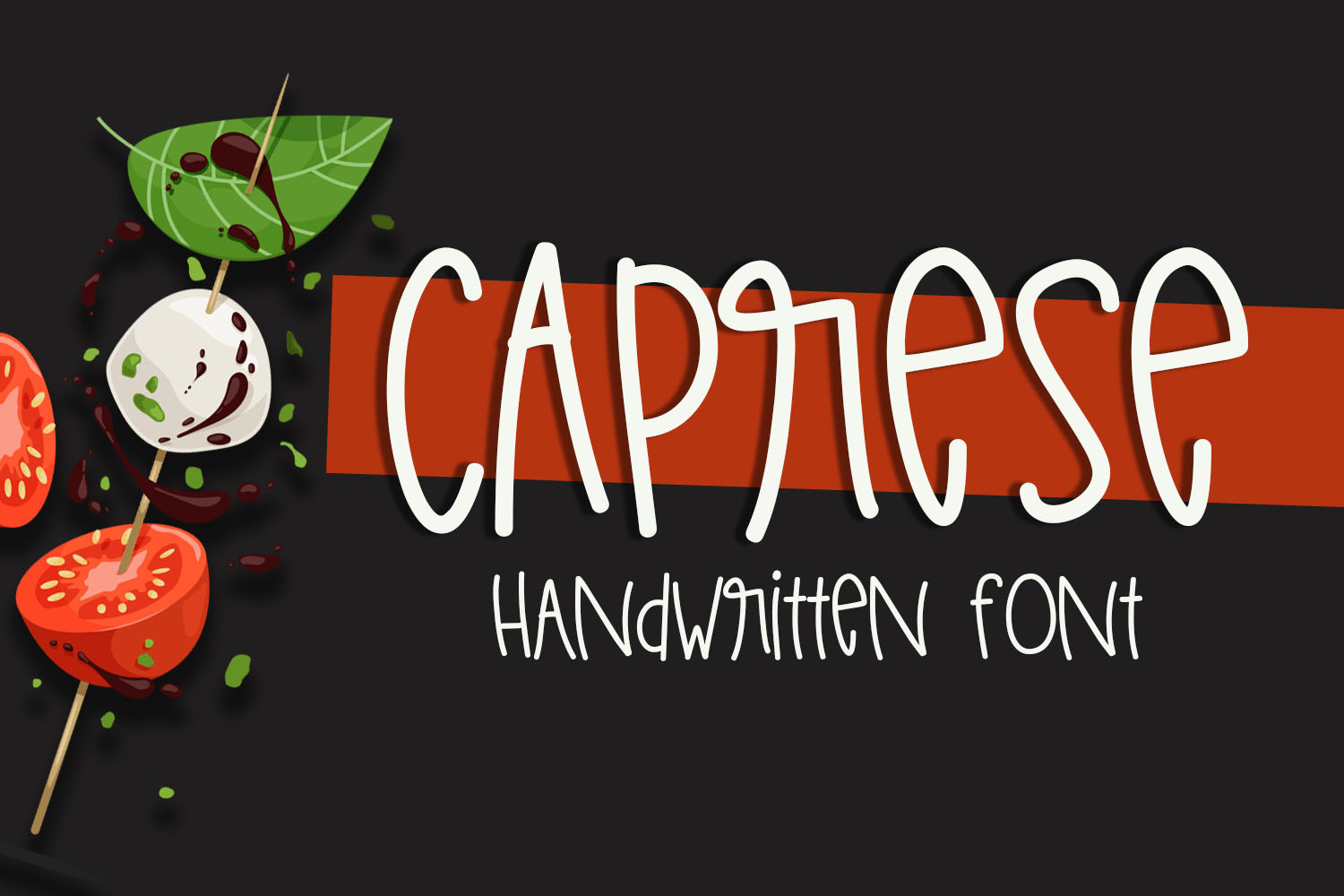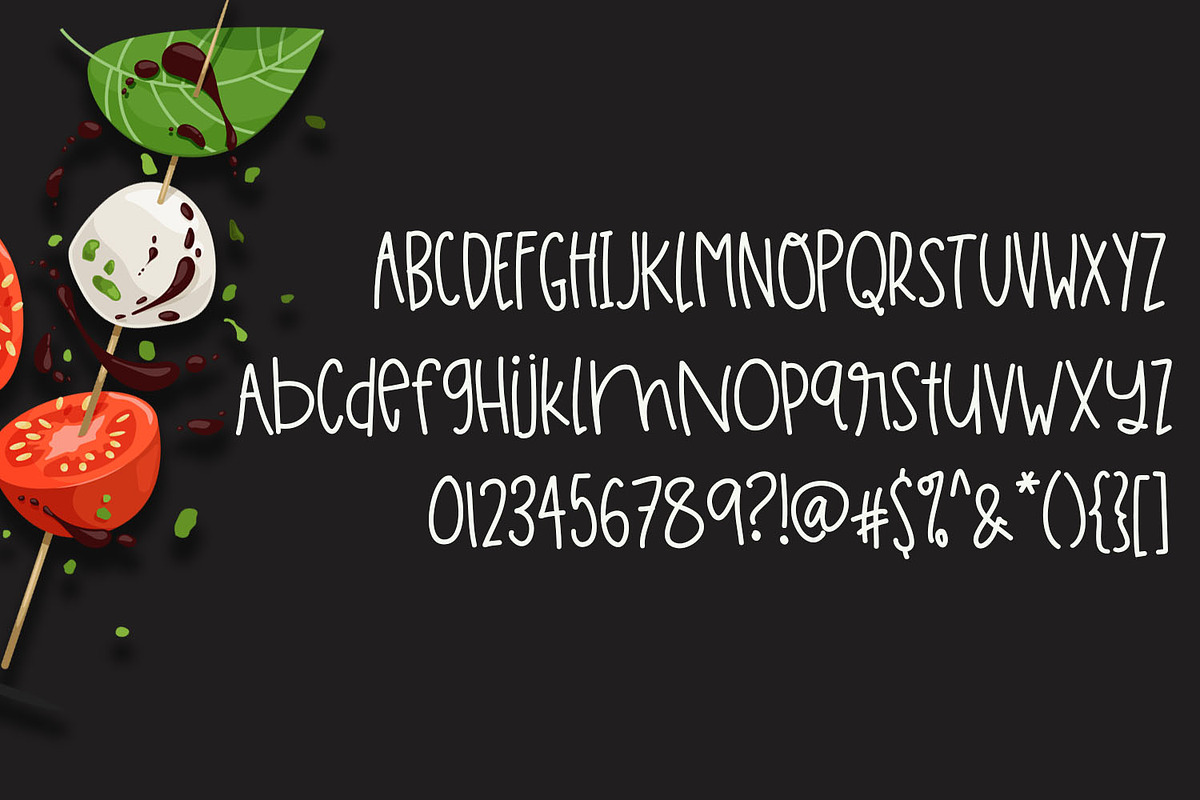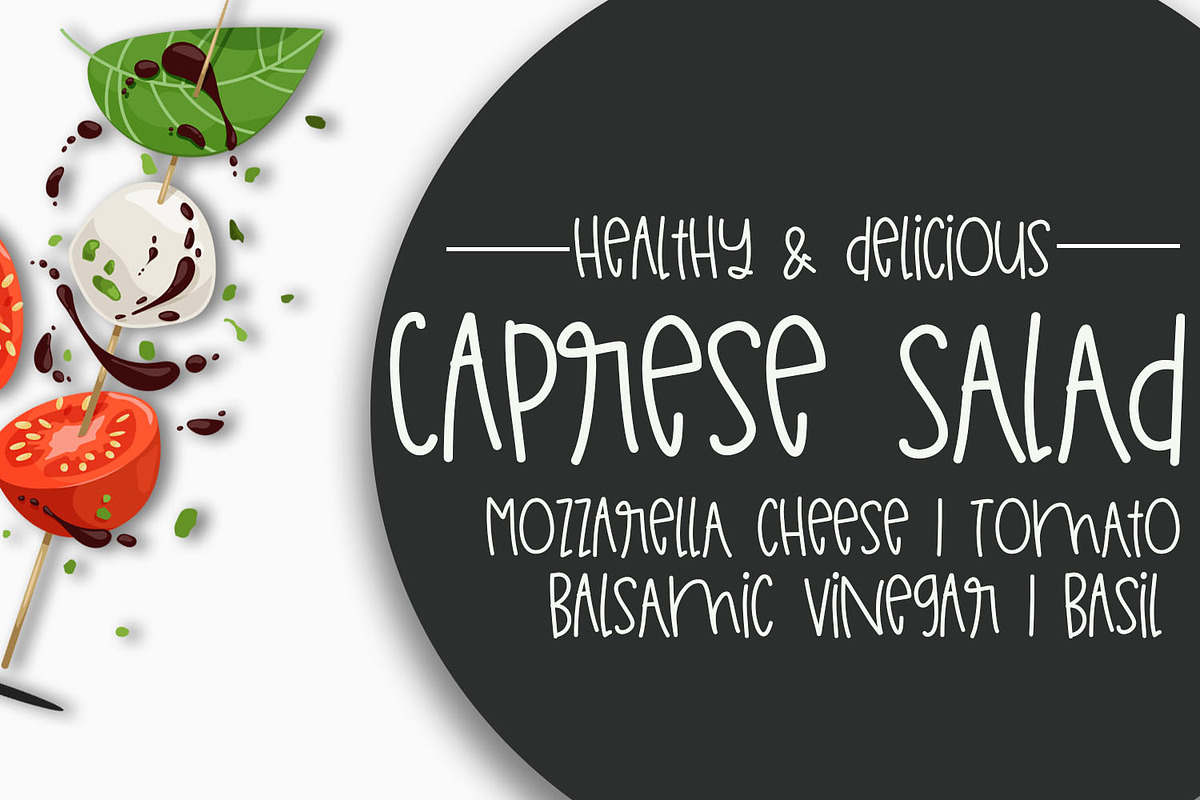
Caprese Handwritten Font
Caprese is a charming mixed case handwritten font bursting with personality. It is perfect for crafters with Cricut, Silhouette or Glowforge machines!